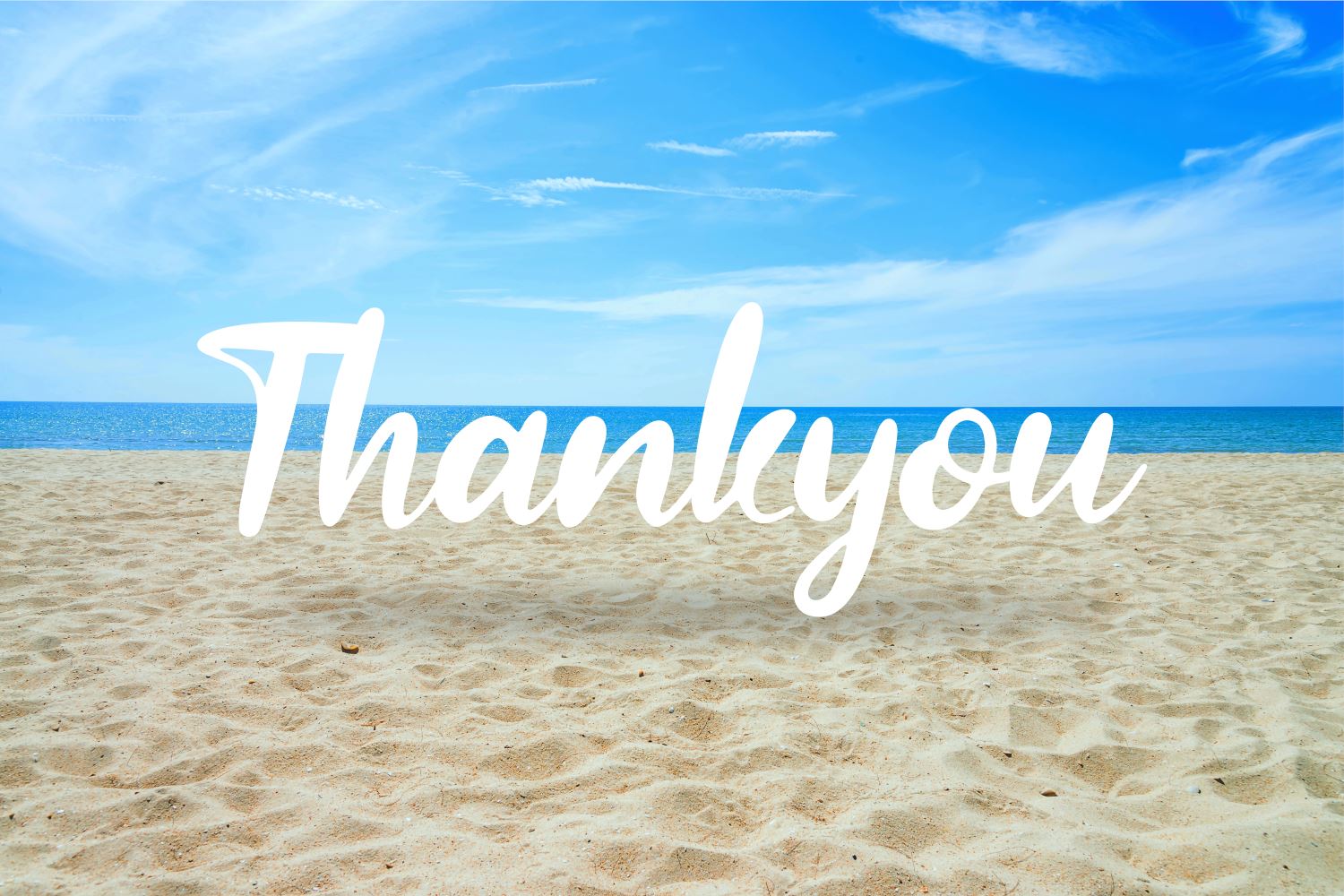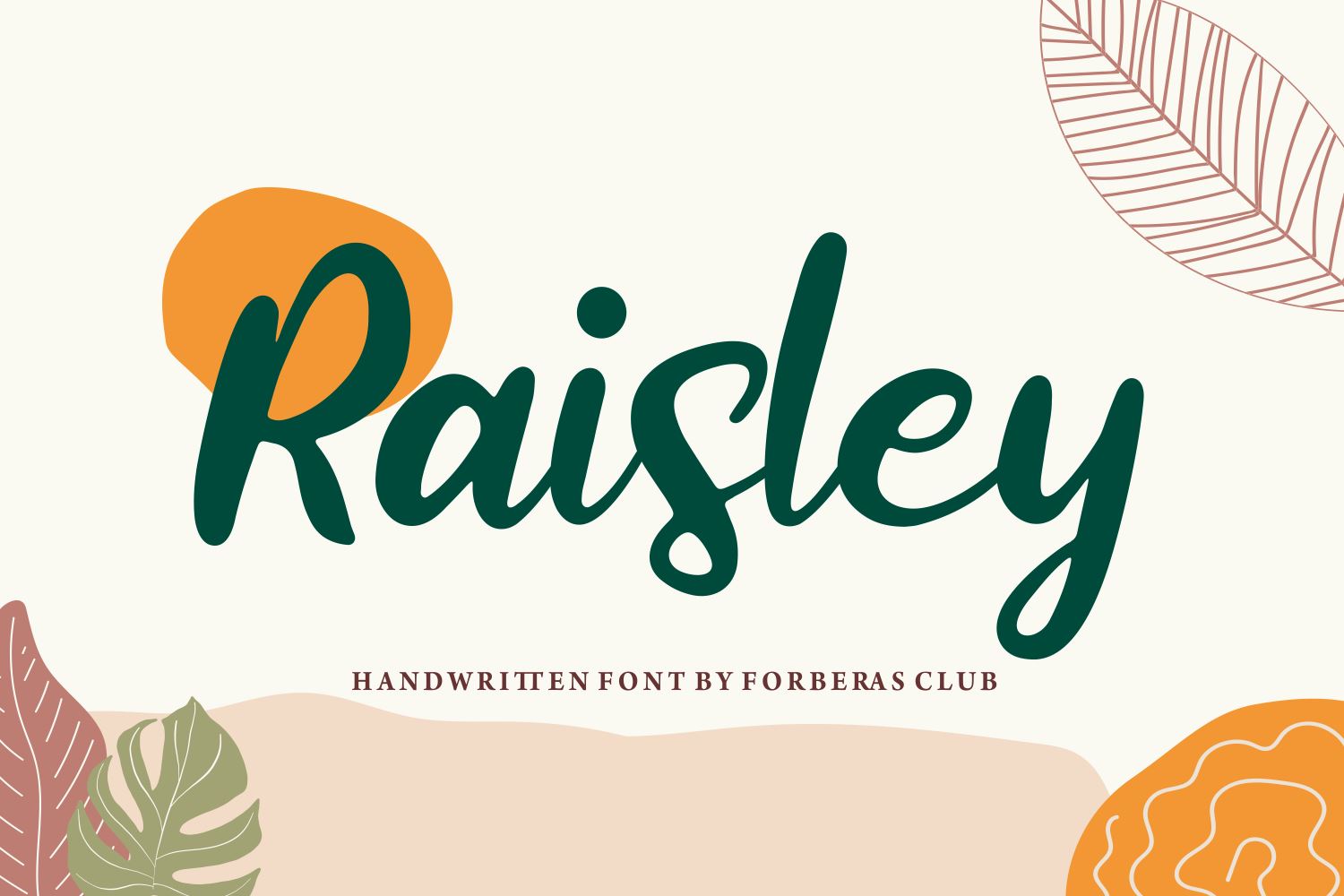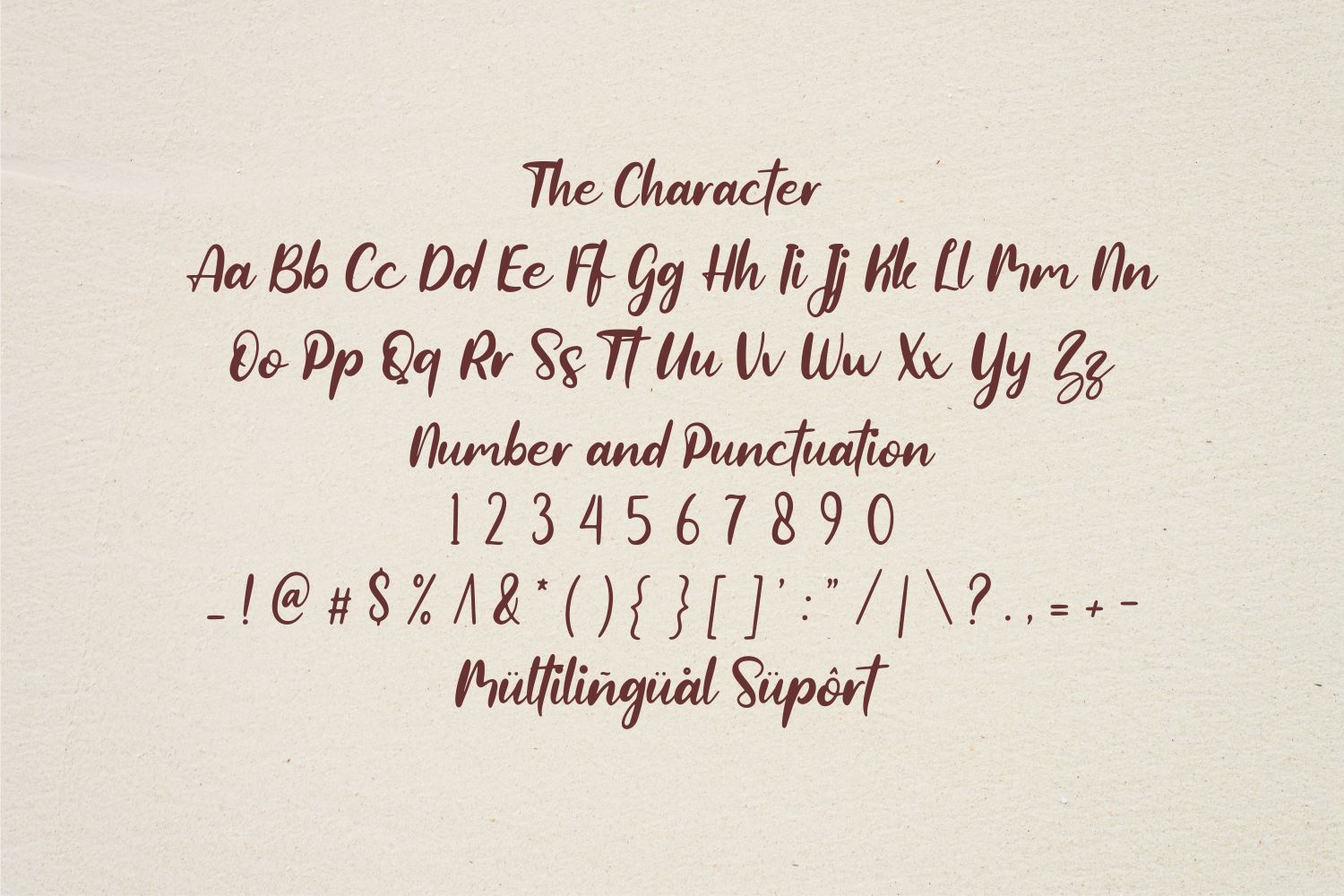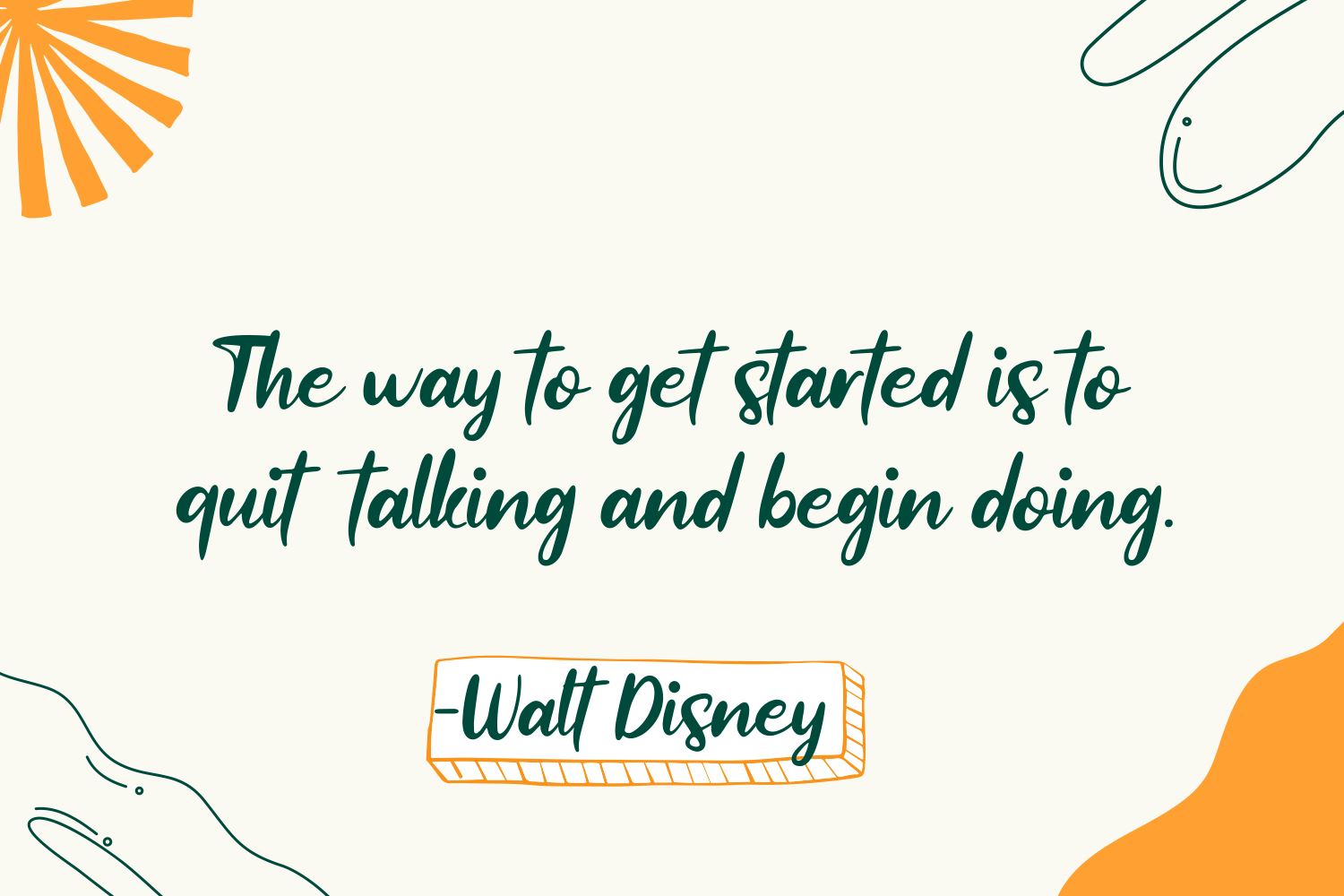
Raisley
About Raisley
Introducing Raisley Font by Forberas Club Raisley is a Modern Handwritten Font. Raisley perfect for book cover, product packaging, branding project, megazine, social media, kisd book fonts, or just used to express words above the background. This font includes TTF and OTF, This font also multilingual support.